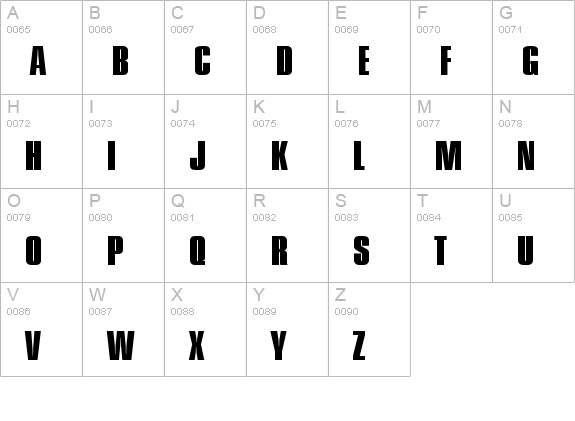
Plakette-Bold is a strong, high-contrast variant in the Plakette typeface family \xE2\x80\x94 well suited to headlines, attention-grabbing titles, and strong calls-to-action.
Plakette-Bold is a stunning font that exudes confidence and power. Its bold and sturdy letterforms make a bold statement, commanding attention and leaving a lasting impression. With its clean and modern design, Plakette-Bold is the perfect choice for projects that require a strong and impactful typography. This font is not only visually striking but also incredibly versatile. Whether you're designing a logo, creating headlines, or crafting eye-catching posters, Plakette-Bold will elevate your designs to new heights. Its bold weight ensures legibility and readability even at smaller sizes, making it ideal for both print and digital applications. But what sets Plakette-Bold apart from other fonts is its accessibility. Unlike many fonts that come with a hefty price tag, Plakette-Bold is freely available to download at FontsMarket.com. This means that you can use this exceptional font without breaking the bank, making it a valuable asset for designers and creatives on a budget. Downloading Plakette-Bold from FontsMarket.com is quick and hassle-free. Within a few clicks, you'll have access to this remarkable font, ready to transform your projects into visual masterpieces. So why wait? Embrace the power and elegance of Plakette-Bold and take your designs to the next level today.